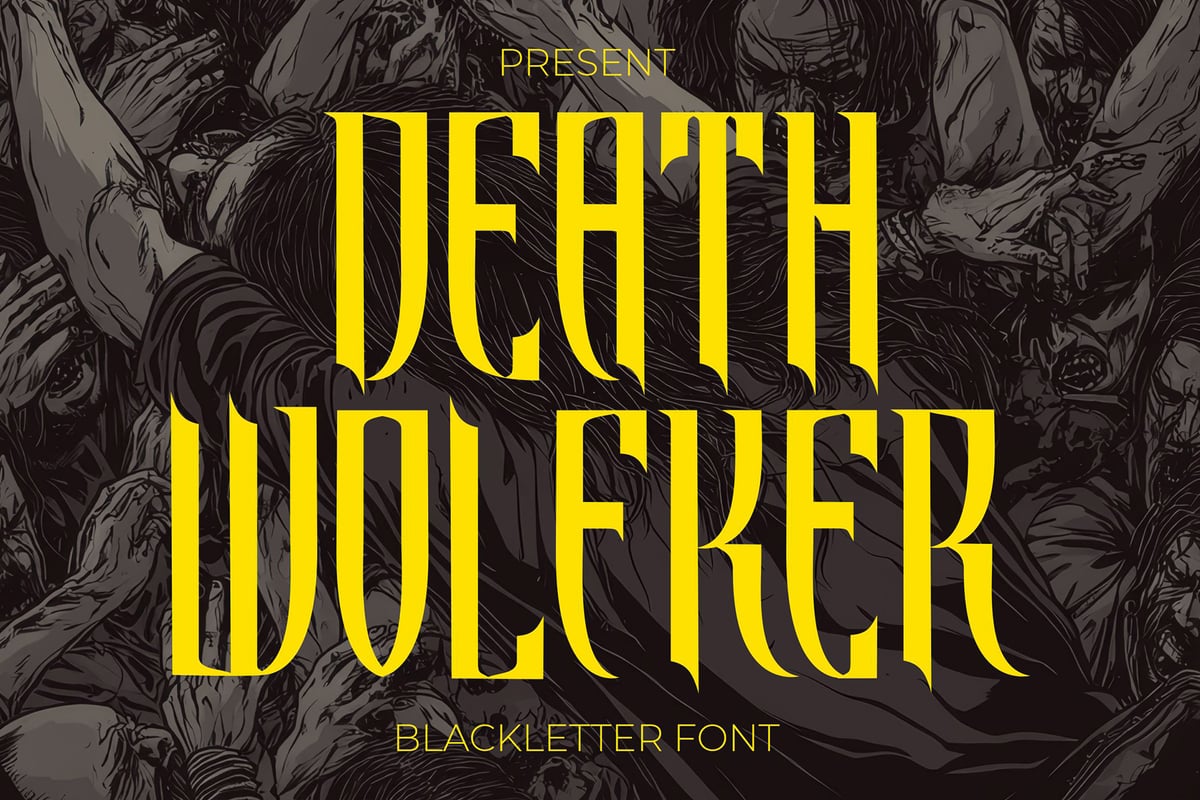
Death Wolfker
Death Wolfker is a commanding and fierce Blackletter font designed to make a bold impact. With sharp edges and a dark, gothic style, it delivers a powerful and rebellious vibe, perfect for projects that need a sense of intensity and drama.